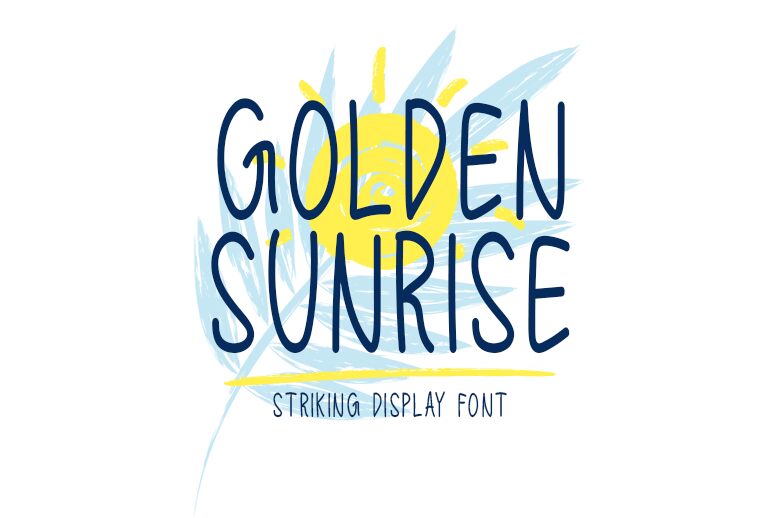
Golden Sunrise font, crafted by Md Shohail Bhuian, captures the organic beauty of a handwritten style with a distinctly light and condensed feel. This font exudes an airy elegance, perfect for projects that seek to blend sophistication with an approachable charm. Its fluid strokes and seamless flow make it ideal for branding, stationery design, and creative art projects.
Whether you're designing invitations or adding a personal touch to digital content, this free font offers versatility and visual appeal. The Golden Sunrise font invites designers to download and explore its unique blend of simplicity and grace across various applications.
Golden Sunrise